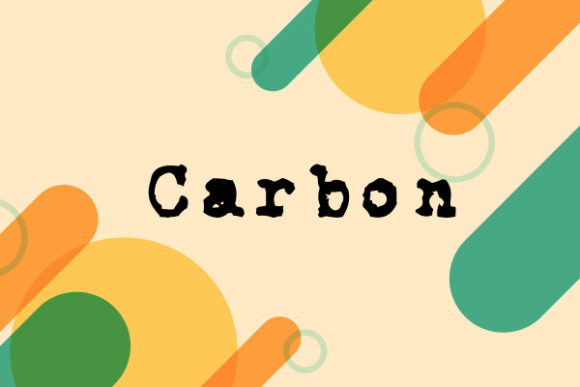
Introducing Carbon Font: The Quirky Serif Font That Adds a Bold Touch to Your Work
Created by Vic Fieger, Carbon is a unique serif font that has been gaining popularity among designers and crafters for its bold and quirky appearance. This interesting font is perfect for those who want to add a touch of personality to their work and make it stand out from the crowd.
The Story Behind Carbon Font
Carbon font was designed with the intention of creating a font that is both bold and elegant. Vic Fieger, the creator of Carbon, aimed to craft a font that would be perfect for use in a variety of design projects, from logos and branding to packaging and advertising. With its distinctive serif style and quirky charm, Carbon has quickly become a favorite among designers and crafters.
Key Features of Carbon Font
So, what makes Carbon font so special? Here are some of its key features:
- Bold and Quirky Appearance: Carbon font has a bold and quirky appearance that is sure to grab attention. Its unique serif style gives it a distinctive look that sets it apart from other fonts.
- Serif Style: Carbon is a serif font, which means it has small lines or flourishes at the ends of its letters. This gives it a classic and elegant look that is perfect for use in a variety of design projects.
- Highly Versatile: Carbon font is highly versatile and can be used in a variety of design projects, from logos and branding to packaging and advertising.
- Easily Readable: Despite its bold and quirky appearance, Carbon font is easily readable, making it perfect for use in body text as well as headlines.
Uses of Carbon Font
Carbon font is a highly versatile font that can be used in a variety of design projects. Here are some of the most popular uses of Carbon font:
- Logos and Branding: Carbon font is perfect for use in logos and branding projects, thanks to its bold and quirky appearance.
- Packaging Design: Carbon font can be used in packaging design to add a touch of personality to product labels and packaging.
- Advertising: Carbon font is perfect for use in advertising, thanks to its bold and attention-grabbing appearance.
- Graphic Design: Carbon font can be used in a variety of graphic design projects, from brochures and flyers to posters and billboards.
Tips for Using Carbon Font
Here are some tips for using Carbon font in your design projects:
- Use it Sparingly: Carbon font is a bold and attention-grabbing font, so it’s best to use it sparingly to avoid overwhelming your design.
- Pair it with Other Fonts: Carbon font can be paired with other fonts to create a unique and interesting look.
- Experiment with Different Sizes: Carbon font can be used in a variety of sizes, from small body text to large headlines.
Carbon font is a unique and interesting serif font that adds a bold and quirky touch to any design project. With its highly versatile design and easily readable style, Carbon font is perfect for use in a variety of projects, from logos and branding to packaging and advertising. Whether you’re a designer or crafter, Carbon font is definitely worth checking out.